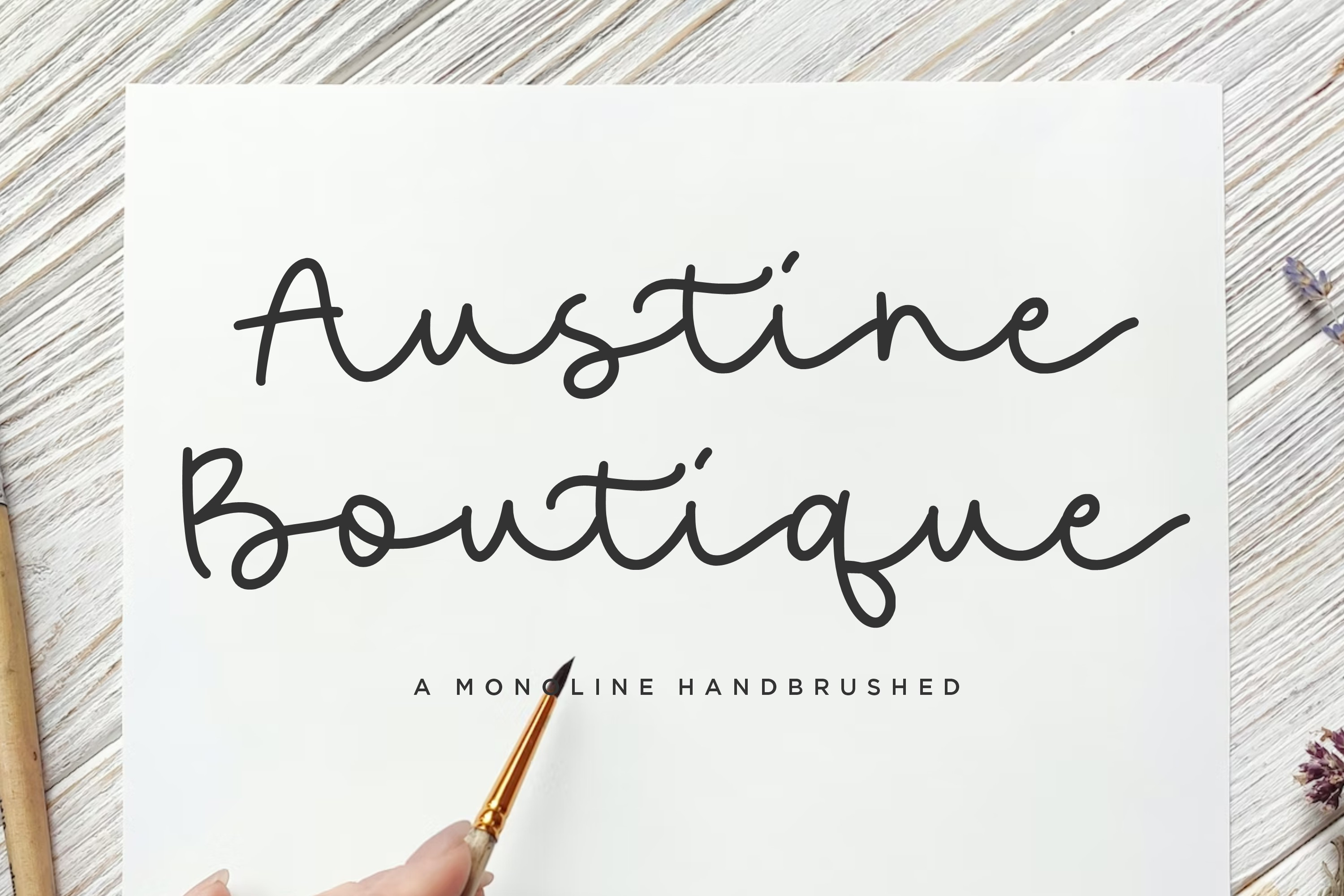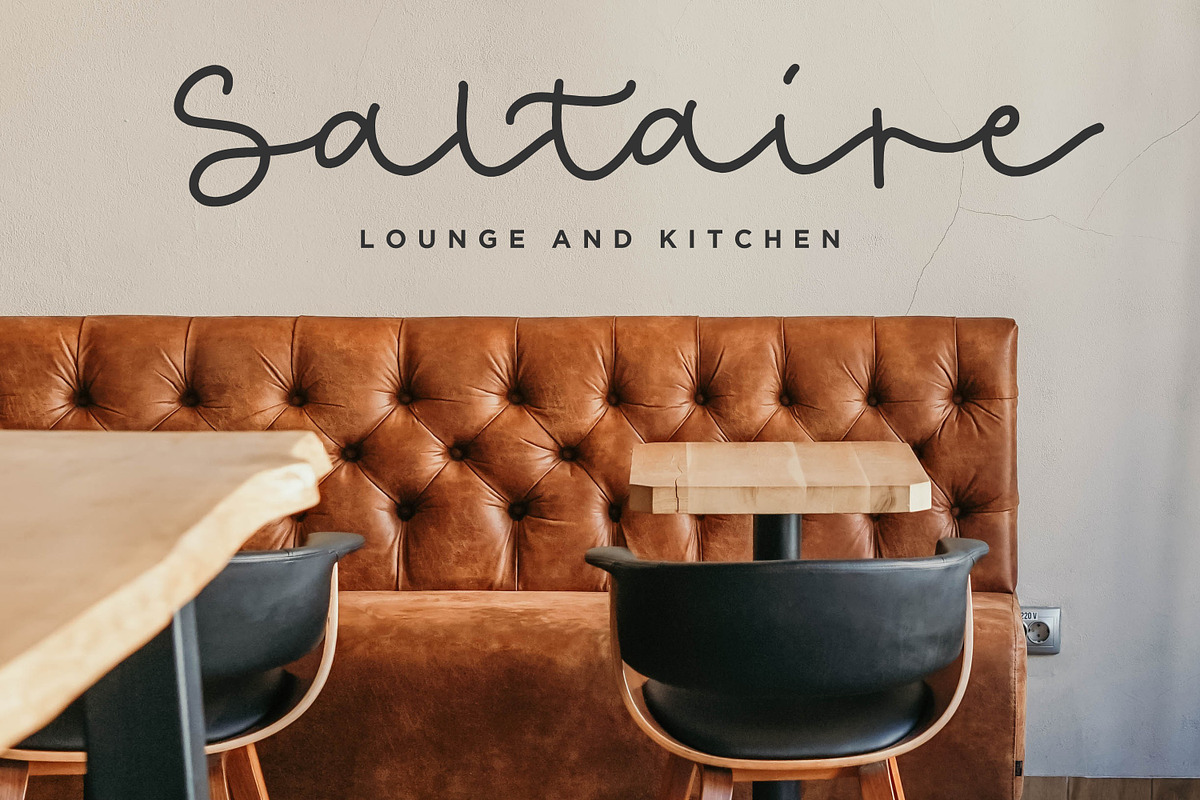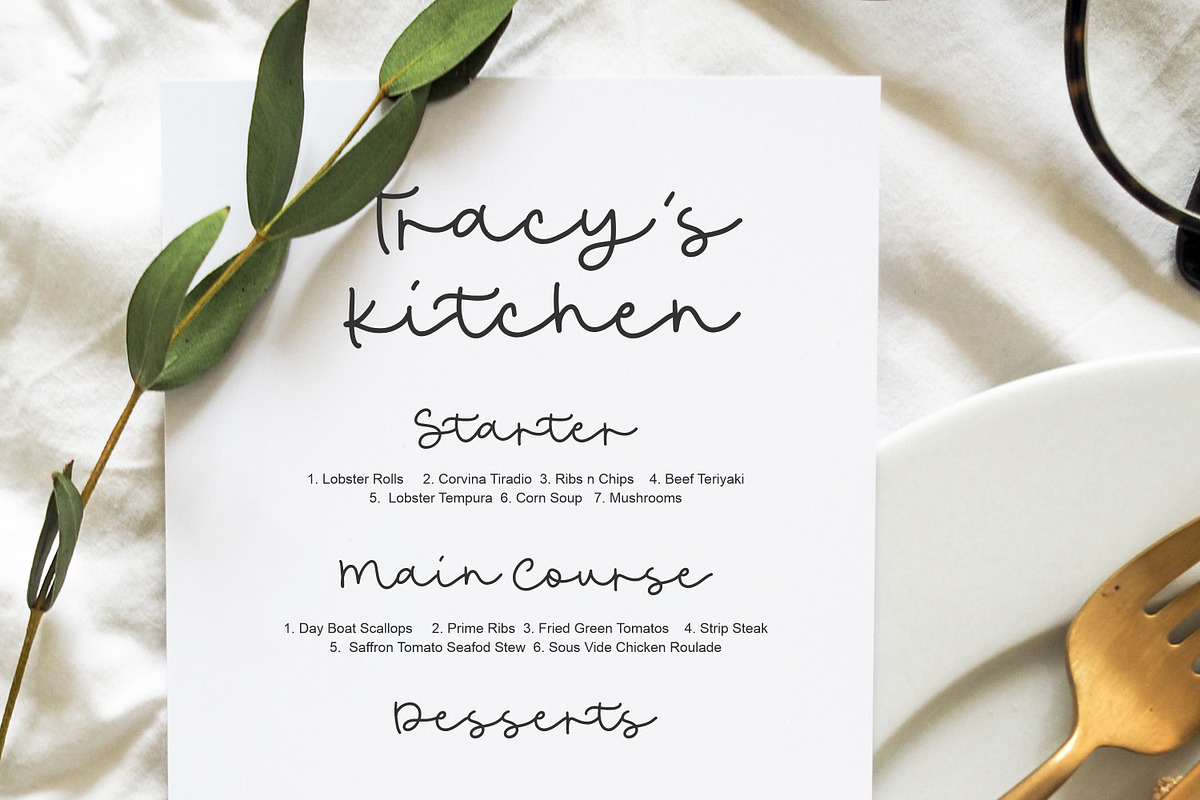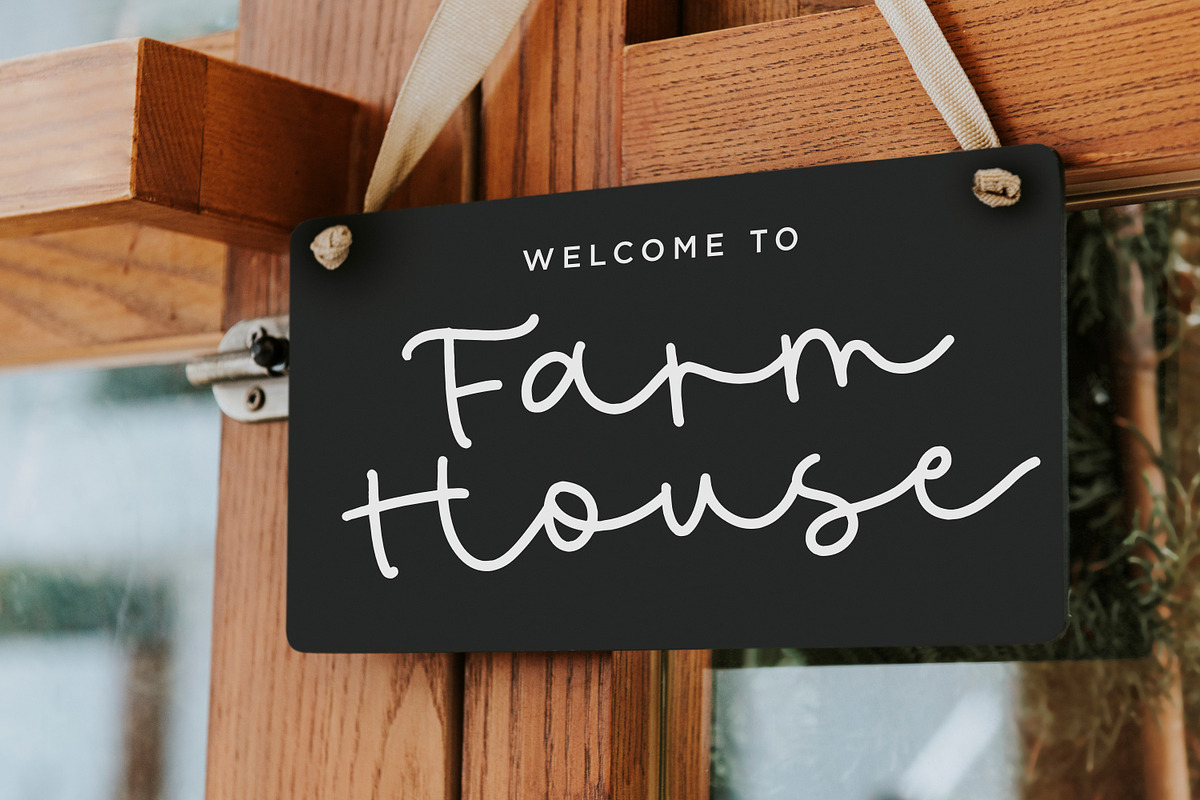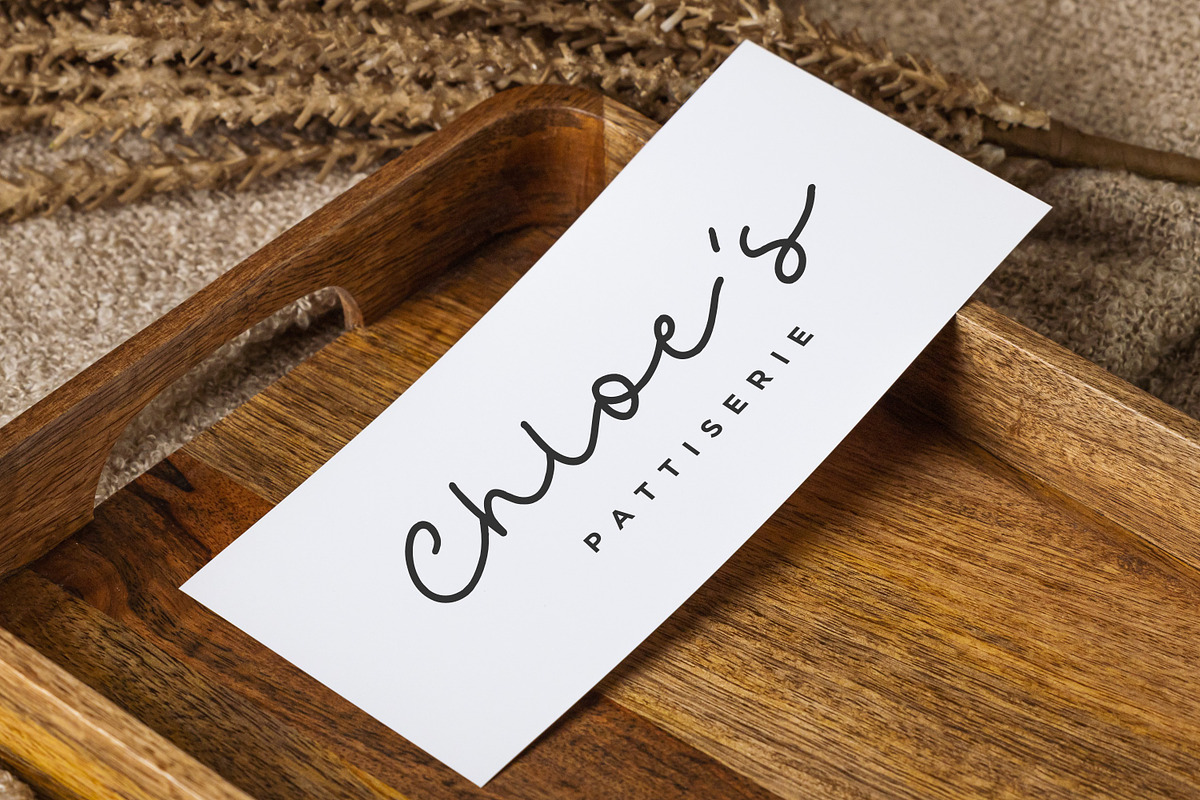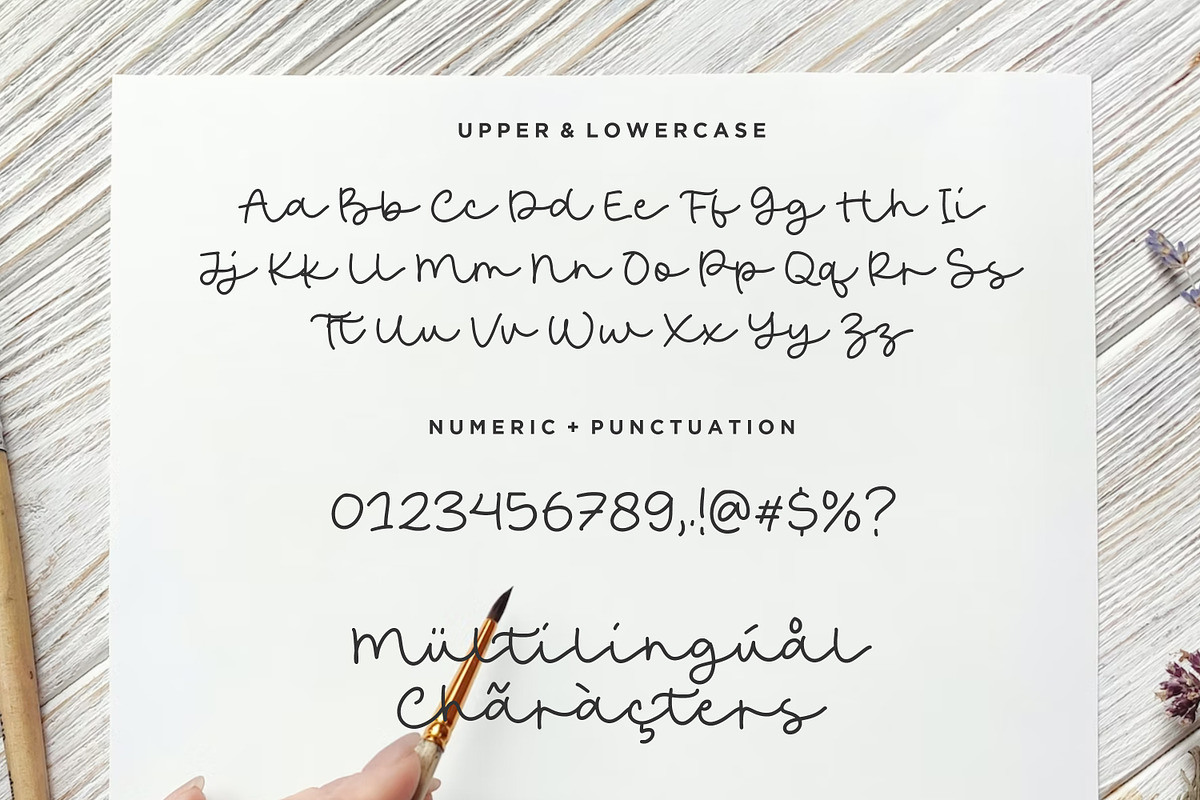
Austine Boutique Font
Austine Boutique - a Monoline Handbrushed that's clean, elegant and perfect for a range of design projects! With its smooth, effortless lines and understated sophistication, this font is the perfect choice for those who want a modern look that's still timeless in its appeal.
Crafted with precision and care, this font is incredibly versatile and can be used for a range of design projects, including logos, branding, invitations, packaging, and more. With its simple yet refined aesthetic, it's sure to make a lasting impression on anyone who sees it.
- also multilingual support